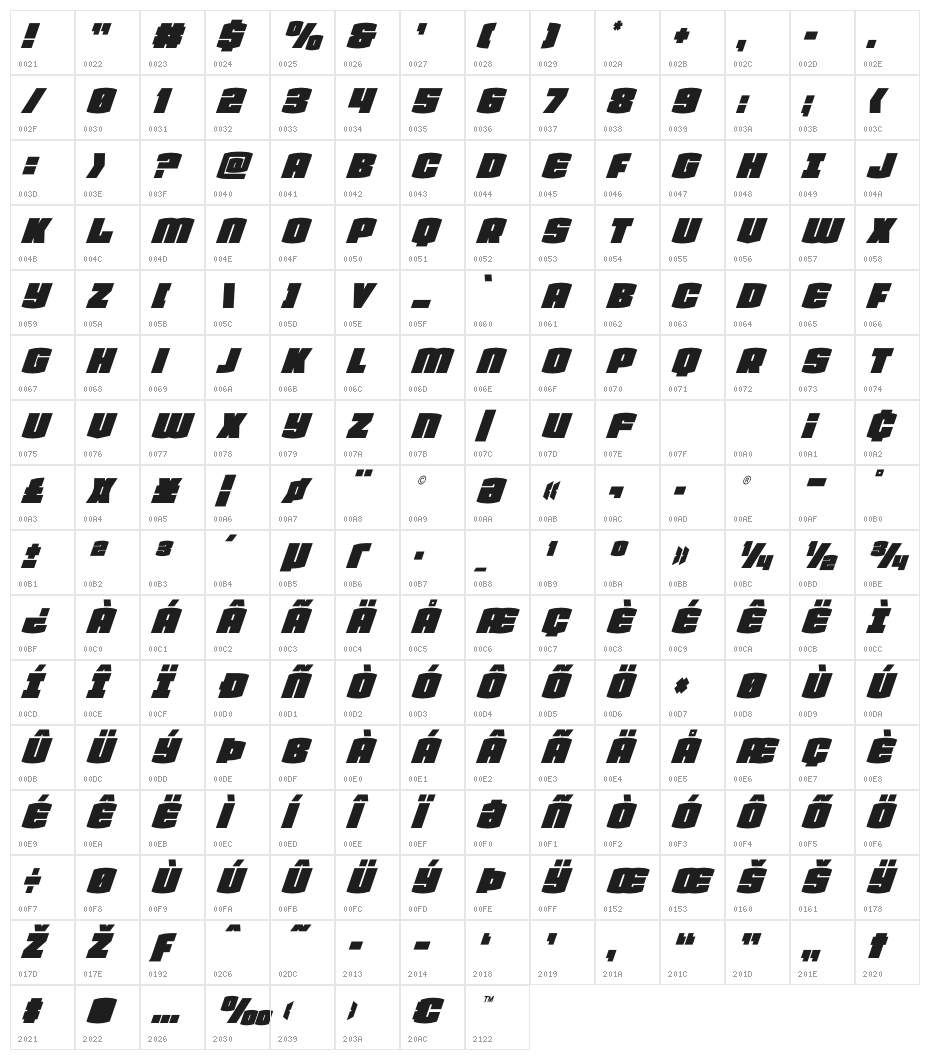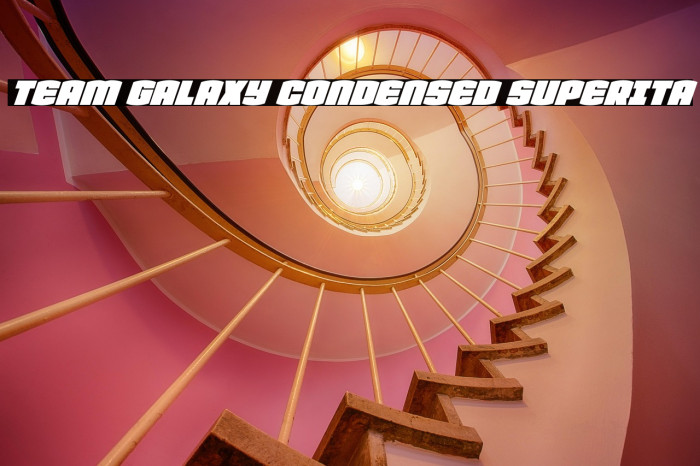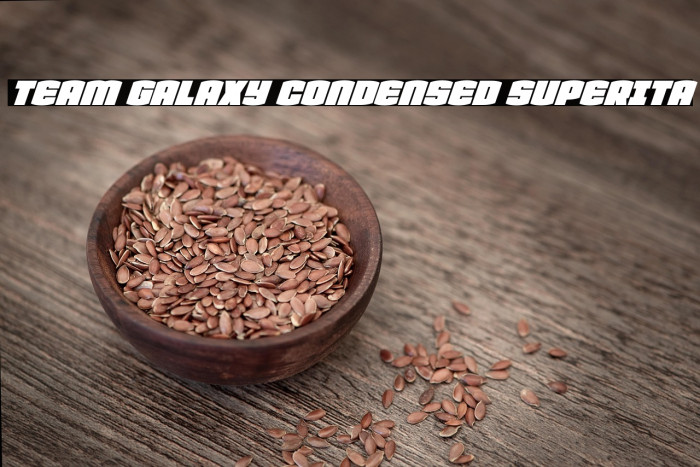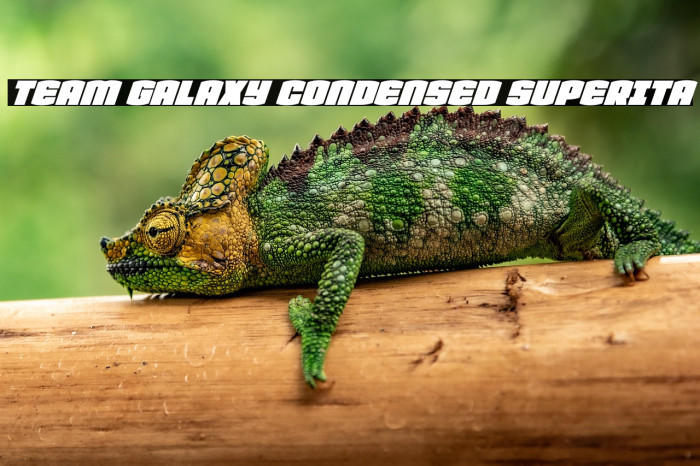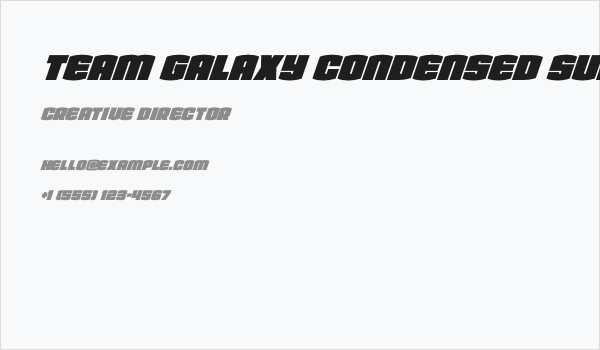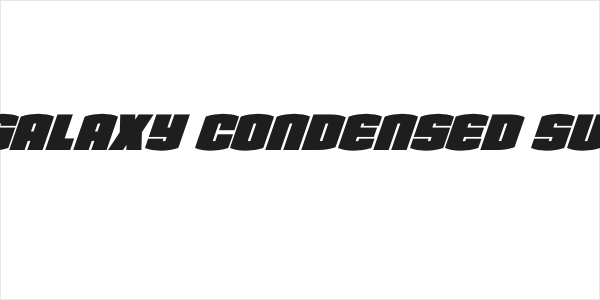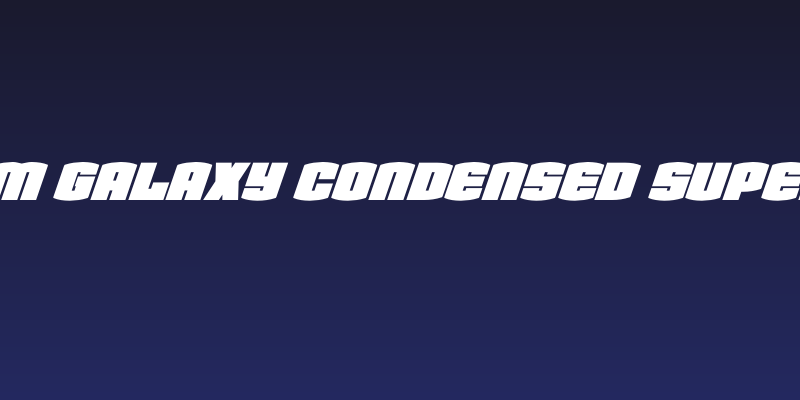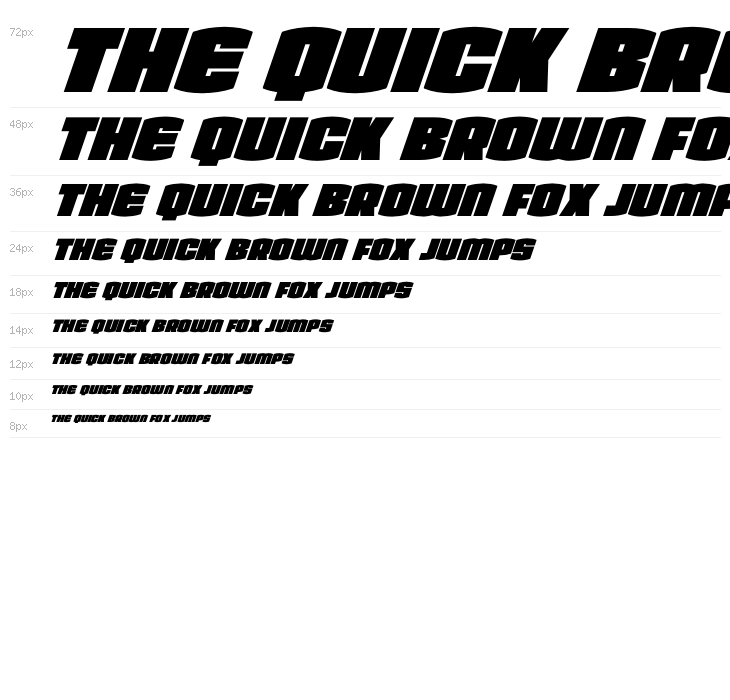
Team Galaxy Condensed SuperIta Font
Team Galaxy Condensed SuperIta Description
This font features a bold and dynamic design with a condensed width, giving it a strong and impactful presence. The characters are italicized, adding a sense of motion and energy. The strokes are thick and consistent, providing a high contrast that enhances readability and visual interest. The overall style is modern and futuristic, making it suitable for projects that require a bold statement. The font's unique design elements make it ideal for use in headlines, posters, and branding materials where a striking and memorable appearance is desired.